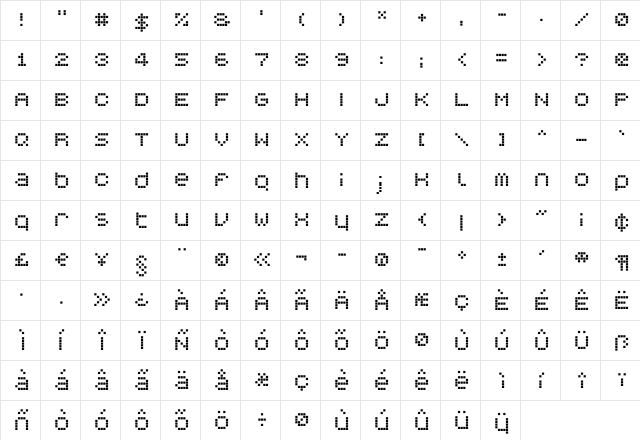
SynChro Regular
Design Context for SynChro Typeface
SynChro is a composed and adaptable typeface that performs quietly and consistently across a wide range of design contexts.